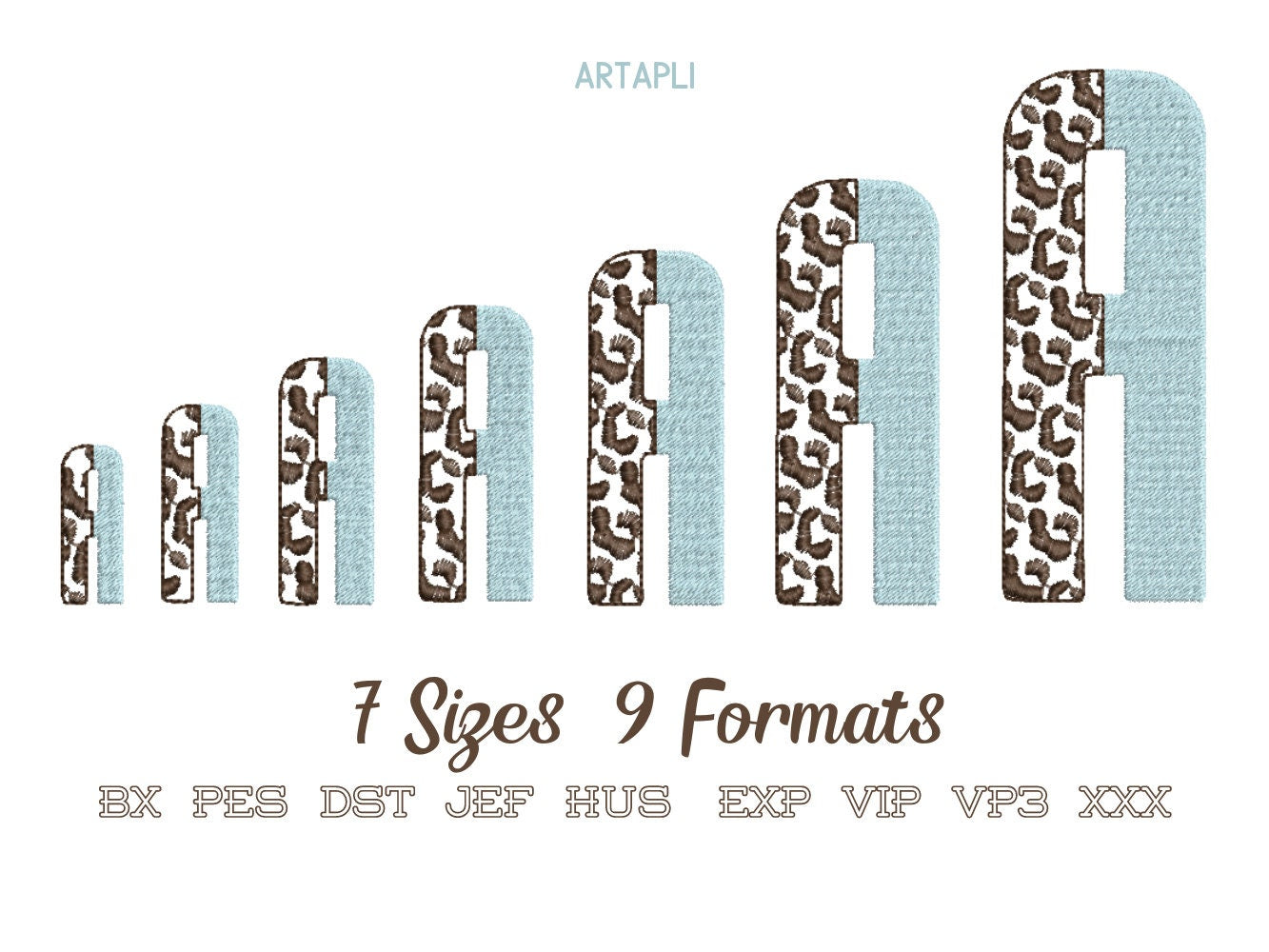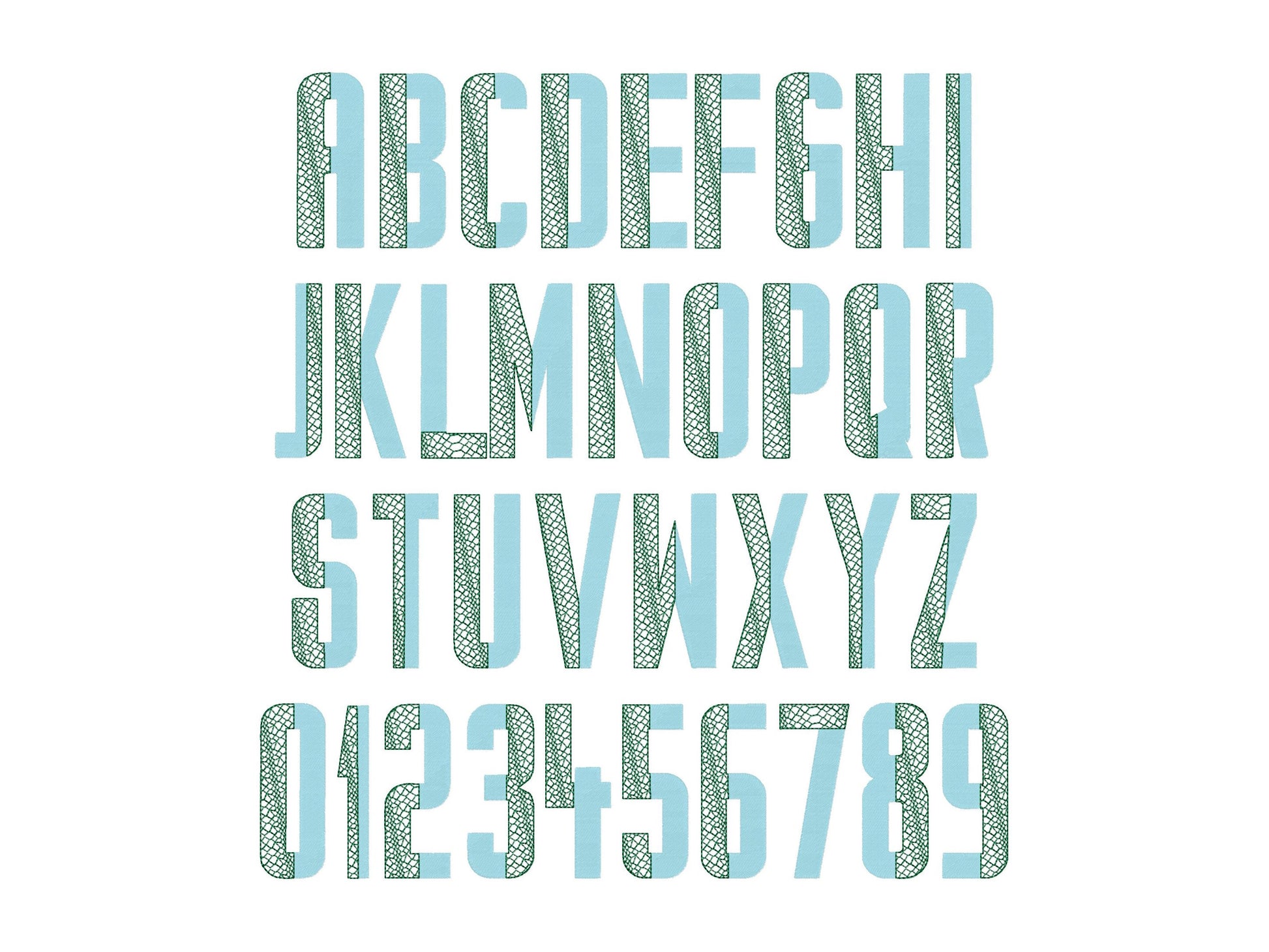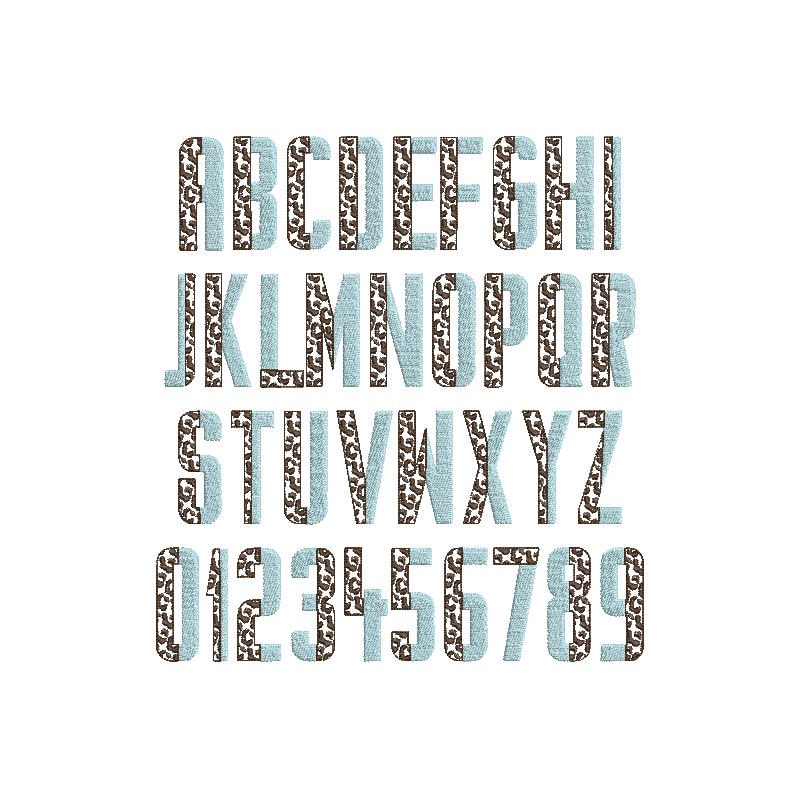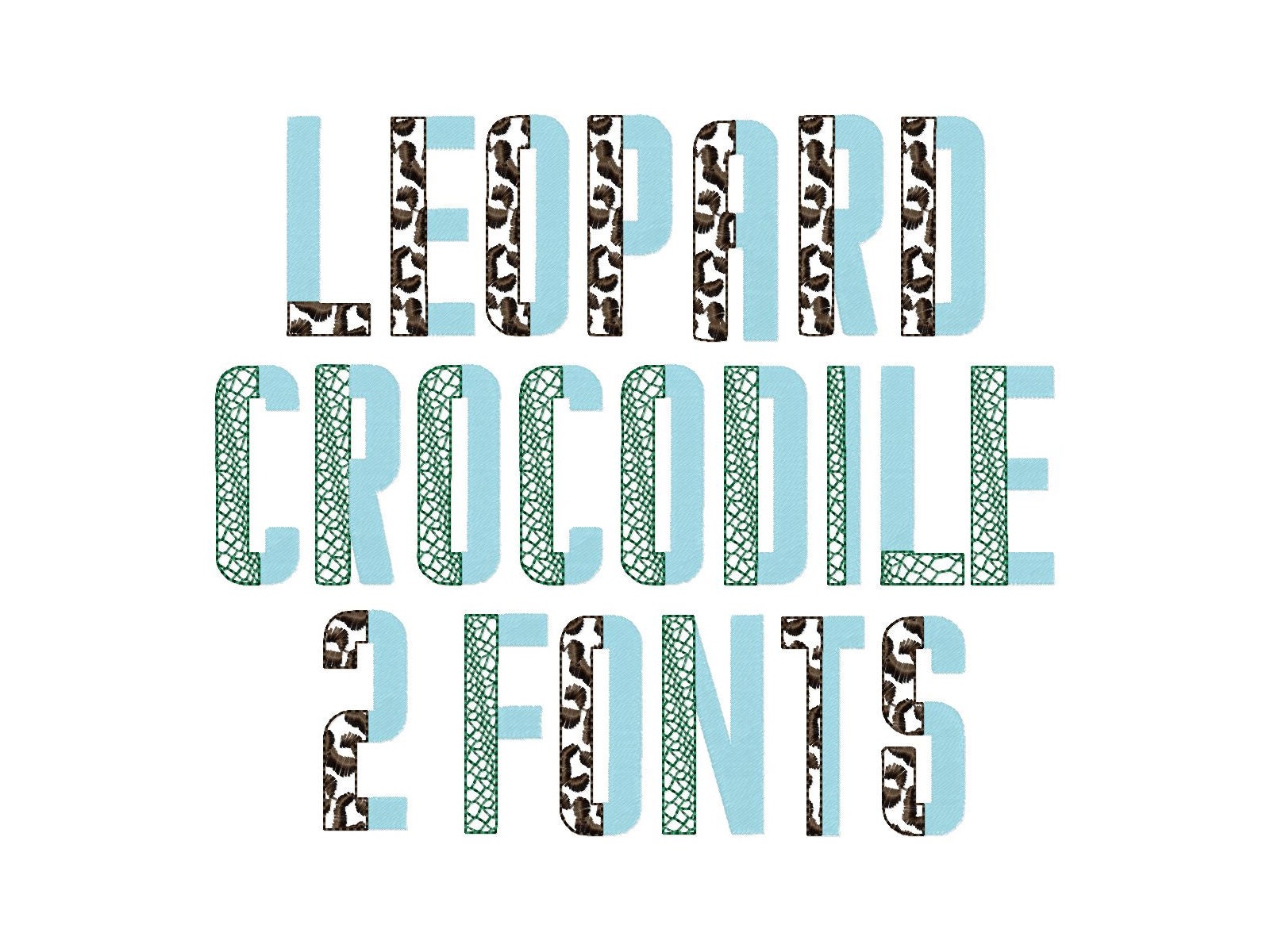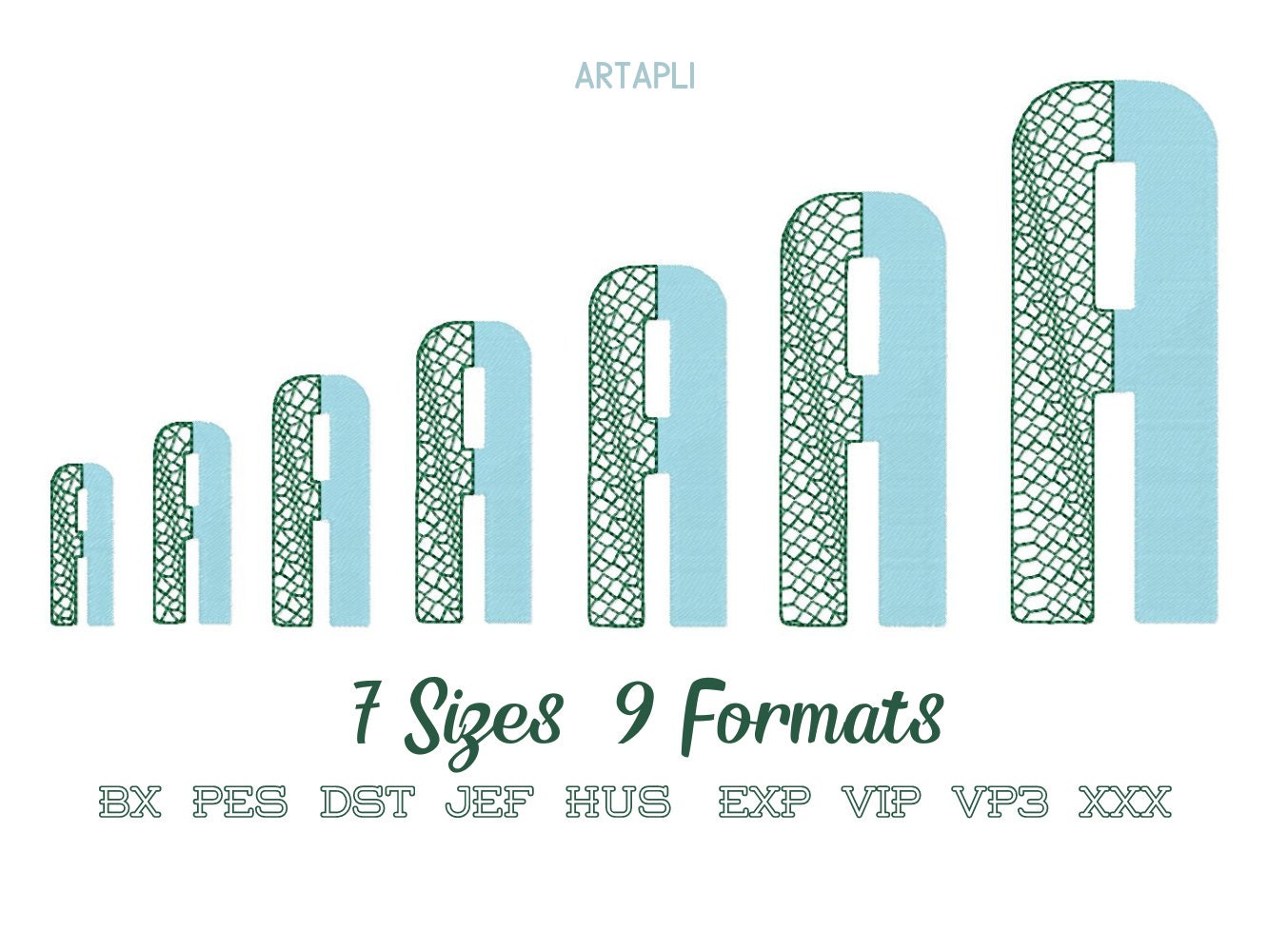
Duo Split Patterned Font Set of 2
Or click to open the linkTwo duotone split fonts: leopard spots and crocodile print. Each letter is half solid fill and half open print, bold for names and monograms.
The print half is open, so the fabric shows through. Uppercase A to Z and numbers 0 to 9 in seven sizes: 1.4, 1.7, 2.1, 2.6, 3.1, 3.8 and 4.7 inches.
- Leopard and crocodile split fonts
- Uppercase A-Z and numbers 0-9
- 7 sizes, 1.4 to 4.7 in